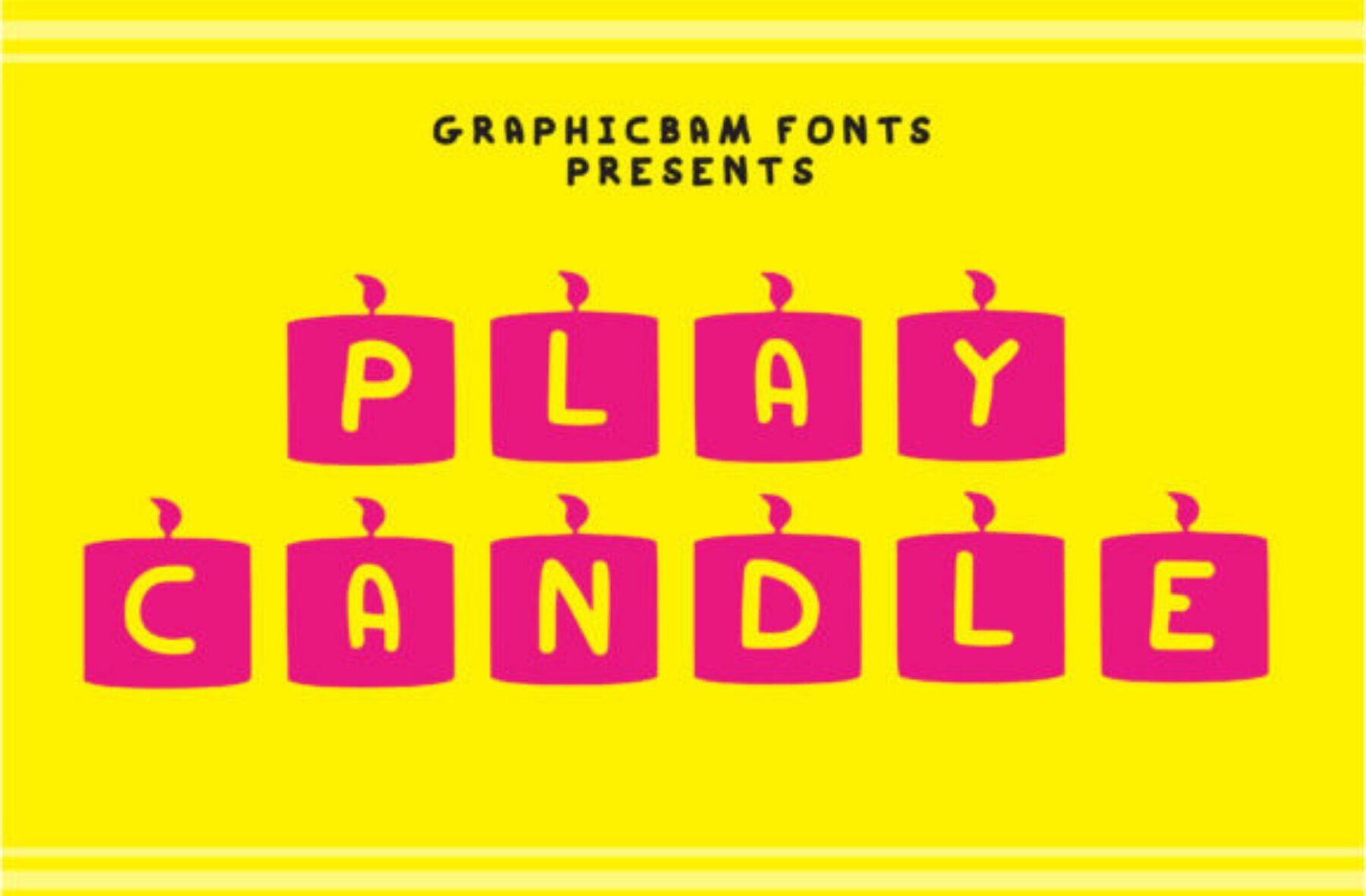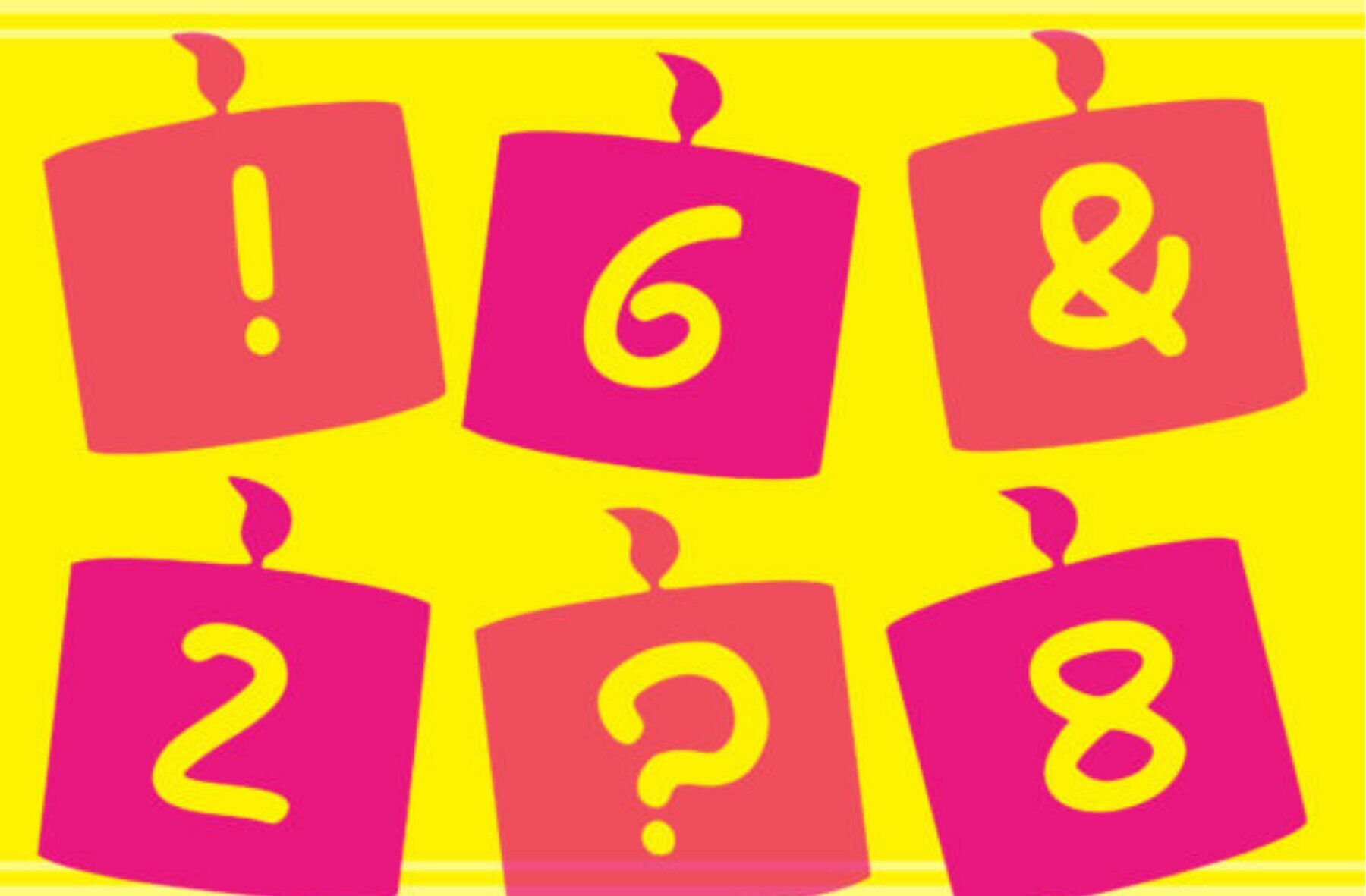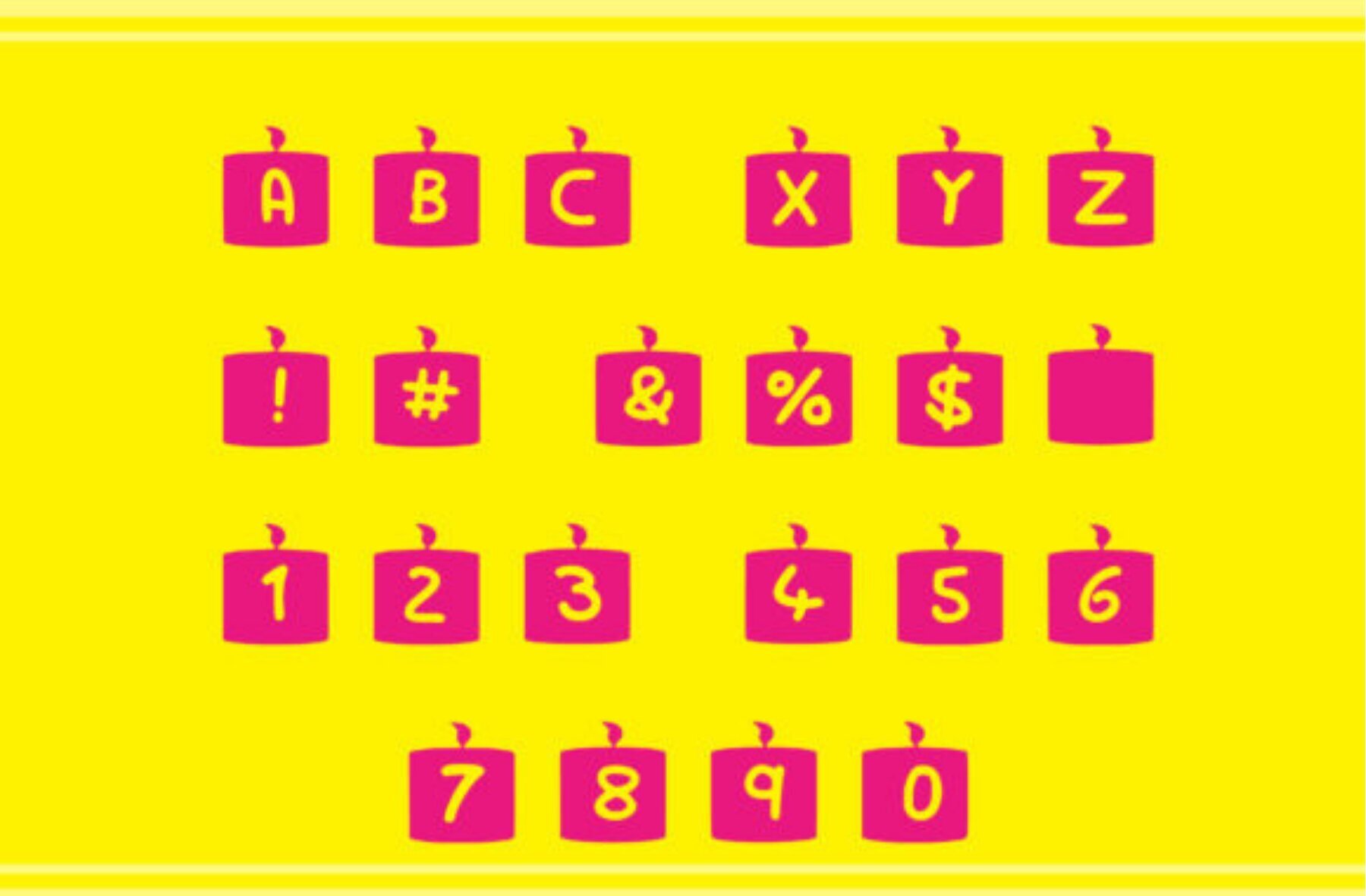
Play Candle Font
Play Candle Regular
Introduce a touch of warmth and unique charm to your projects with the Play Candle font by Graphics Bam. Each character is artistically adorned with a candle motif, offering a distinctive flair that effortlessly complements a variety of themes. Let your imagination glow with possibilities as this font becomes a vital part of your design toolkit.Play Candle: Illuminate Your Designs